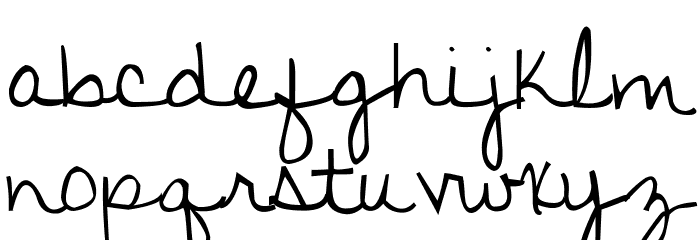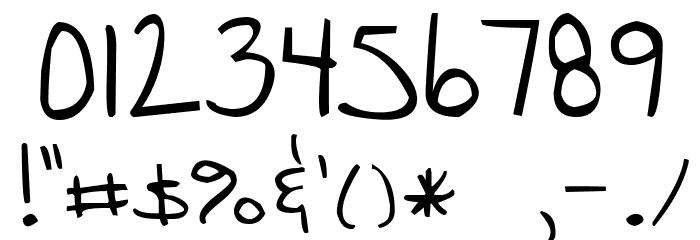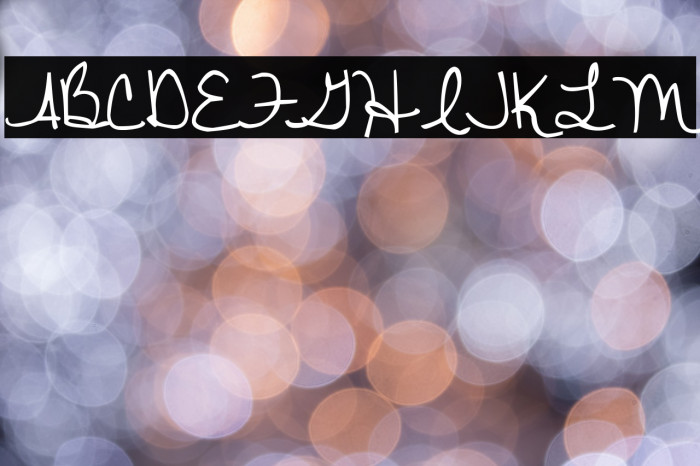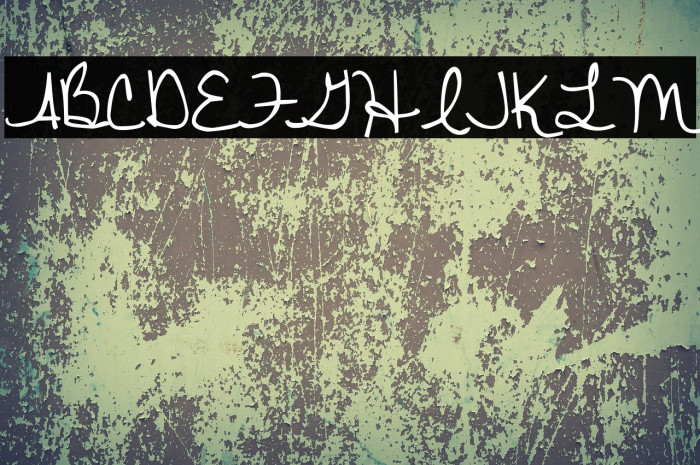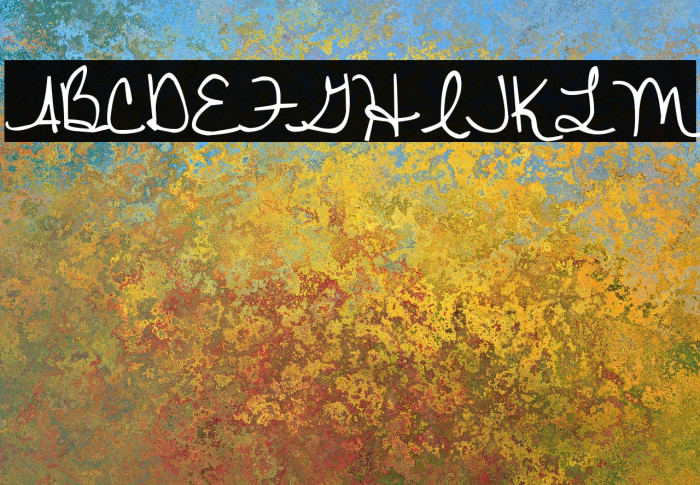
Discover Beauty Font
This font features a playful and casual handwritten style, characterized by its flowing, cursive-like strokes. The uppercase letters exhibit a unique blend of curves and angles, giving them a whimsical appearance. The lowercase letters maintain a consistent flow, enhancing the font's readability while retaining its informal charm. Numbers are bold and slightly rounded, complementing the overall style. Special characters are creatively integrated, maintaining the font's cohesive look. The font's organic and lively nature makes it suitable for projects that aim to convey a sense of fun and approachability.
A playful, handwritten font with a casual, flowing style.
- Proposed Projects: Ideal for greeting cards, invitations, personal branding, and creative projects that require a friendly and informal touch.
- Overall Style: Casual
- Use Case: Headlines, Invitations, Personal Branding